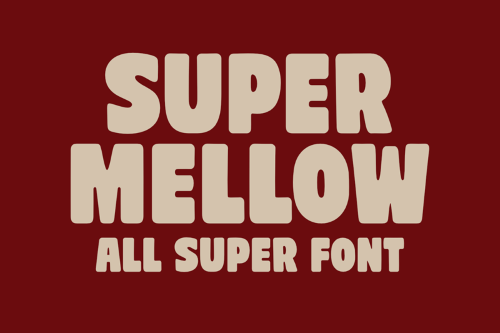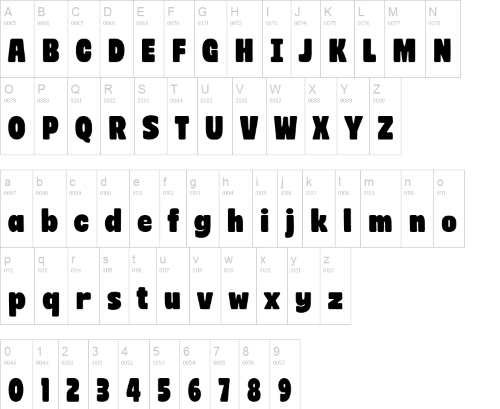
Super Mellow Font
Super Mellow Font is a soft, rounded display typeface with a relaxed and friendly personality. Its smooth curves and bubbly letterforms make it perfect for logos, posters, packaging, kids’ designs, and cheerful branding. Super Mellow adds warmth, fun, and a laid-back charm to any creative project.